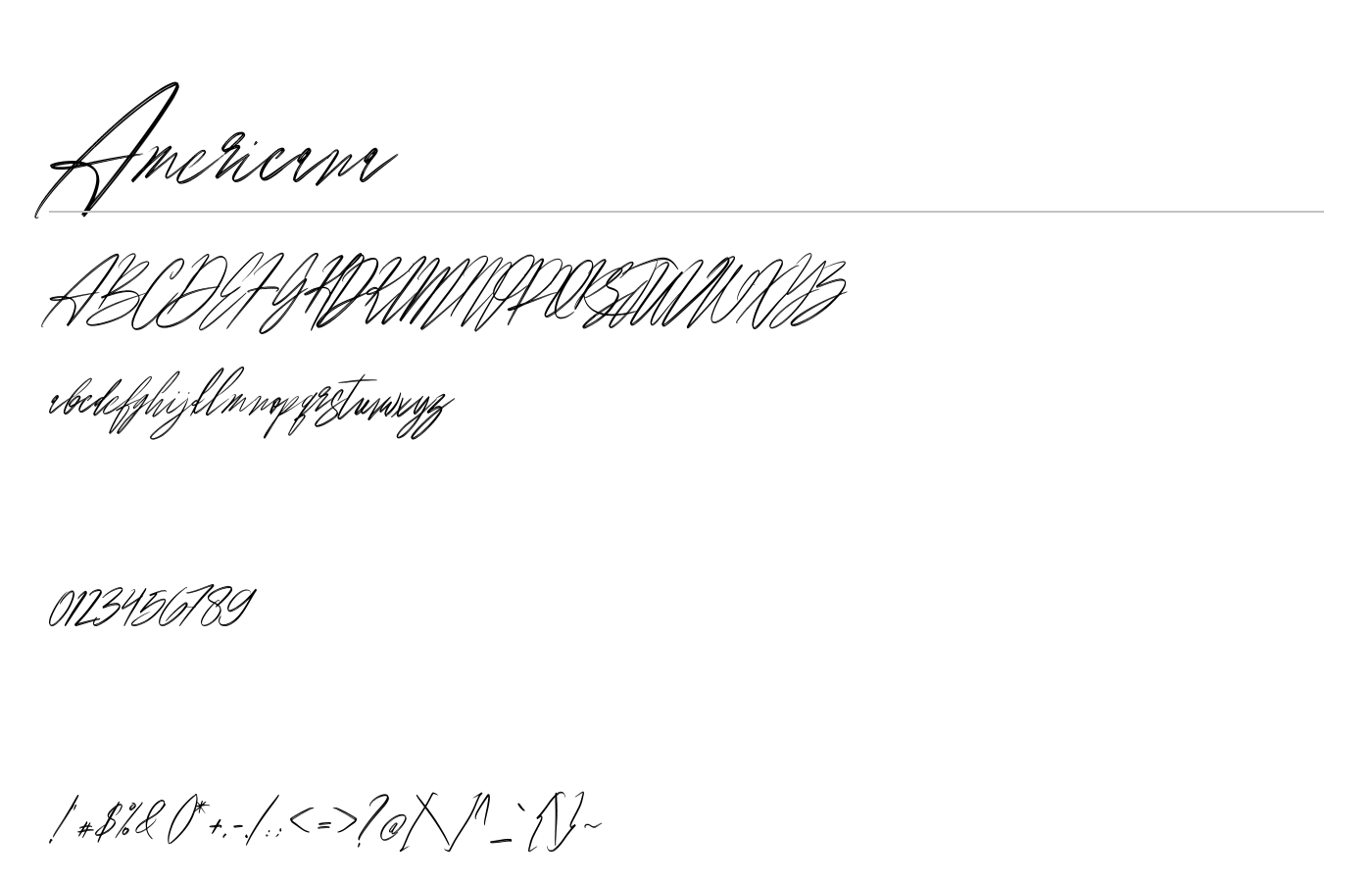
Americana Font is an elegant, handwritten script with a delicate, flowing style that mimics natural pen strokes. Its slender, slightly slanted letterforms and fine lines convey a sophisticated and personal touch, making it perfect for invitations, branding, and creative projects where a refined, artistic feel is desired. This font shines in designs that seek to express elegance and individuality with a graceful, modern twist.
Americana Font
About Americana Font
| Font family | Americana Font |
| Designer | Analogous Studio |